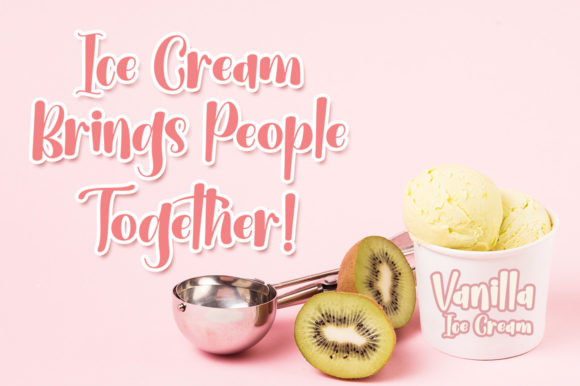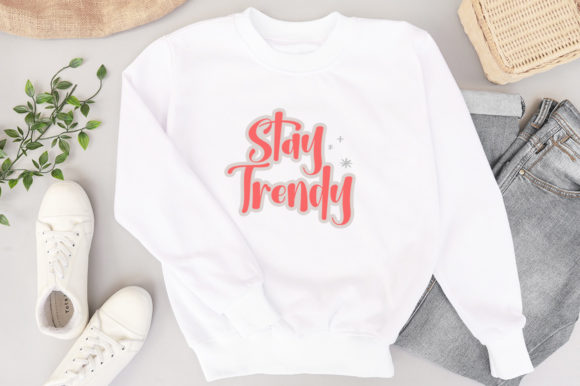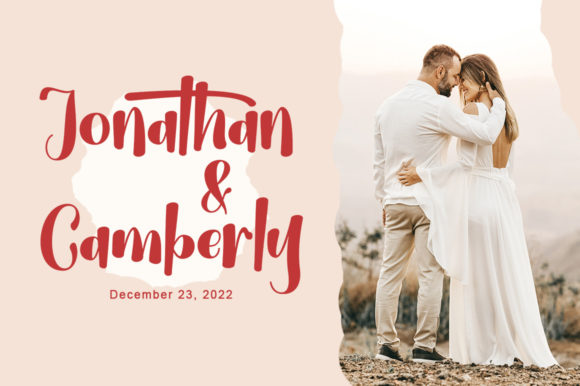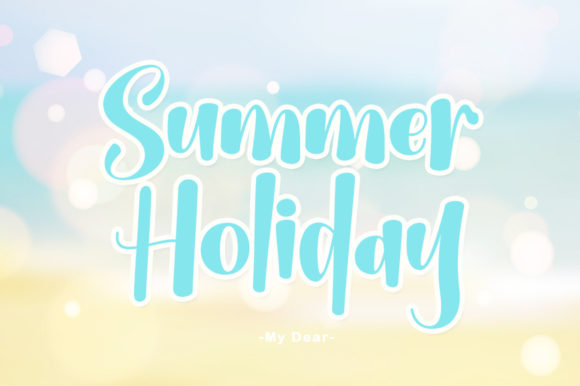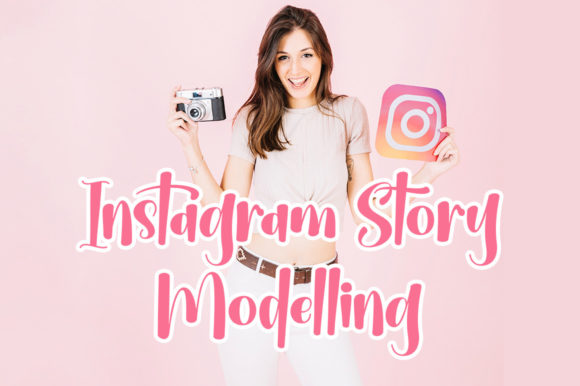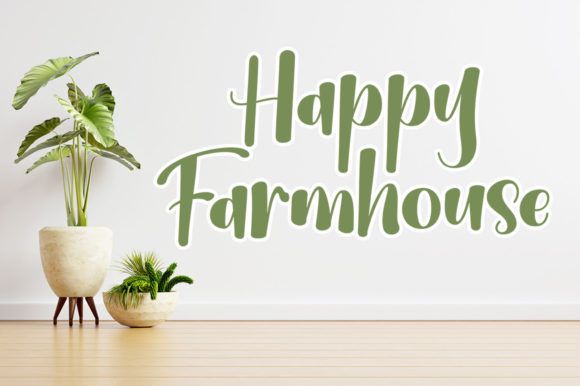
Astoria Beauty Font: Elevate Your Designs with a Quirky yet Fun Handwritten Style
Are you on the hunt for a font that adds a touch of whimsy and playfulness to your designs? Look no further than the Astoria Beauty Font! This charming handwritten font is perfect for designers and crafters who want to create unique and eye-catching visuals. In this article, we’ll dive into the world of Astoria Beauty, exploring its features, uses, and benefits.
What is Astoria Beauty Font?
Astoria Beauty is a quirky, yet fun handwritten font that’s designed to bring a smile to your face. Its irregularities and imperfections give it a personal and human touch, making it perfect for designs that require a dash of personality. Whether you’re working on a wedding invitation, greeting card, social media quote, or branding project, Astoria Beauty is the perfect companion.
Key Features of Astoria Beauty Font
- Handwritten style: Astoria Beauty boasts a beautiful, handwritten style that’s perfect for adding a personal touch to your designs.
- Quirky and fun: This font is playful, fun, and full of character, making it ideal for designs that require a lighthearted approach.
- Versatile: Astoria Beauty can be used for a wide range of designs, from wedding invitations and greeting cards to social media quotes, branding, logos, and more.
- Easy to read: Despite its playful nature, Astoria Beauty remains easy to read, making it perfect for body text and headlines.
Uses of Astoria Beauty Font
Astoria Beauty is a versatile font that can be used in a variety of design projects. Here are some ideas to get you started:
- Wedding Invitations: Add a touch of whimsy to your wedding invitations and save the dates with Astoria Beauty.
- Greeting Cards: Create beautiful and playful greeting cards for special occasions like birthdays, holidays, and anniversaries.
- Social Media Quotes: Use Astoria Beauty to create eye-catching social media quotes that will make your followers smile.
- Branding and Logo: Establish your brand identity with a unique and memorable logo created using Astoria Beauty.
- Packaging Design: Add a personal touch to your product packaging with Astoria Beauty.
Benefits of Using Astoria Beauty Font
So, why choose Astoria Beauty for your design projects? Here are some benefits to consider:
- Unique and distinctive: Astoria Beauty helps you stand out from the crowd with its quirky and playful style.
Tips and Tricks for Using Astoria Beauty Font
To get the most out of Astoria Beauty, here are some tips and tricks to keep in mind:
- Experiment with colors: Astoria Beauty looks great in a variety of colors, so don’t be afraid to experiment and find the perfect hue for your design.
- Mix and match: Combine Astoria Beauty with other fonts to create a unique and visually appealing design.
- Pay attention to spacing: Make sure to adjust the spacing between letters and words to ensure your design looks balanced and harmonious.
Astoria Beauty Font is a charming and versatile handwritten font that’s perfect for designers and crafters who want to add a touch of whimsy to their designs. With its quirky and playful style, ease of use, and affordability, Astoria Beauty is an excellent choice for a wide range of design projects. So why not give it a try and see how it can elevate your designs?